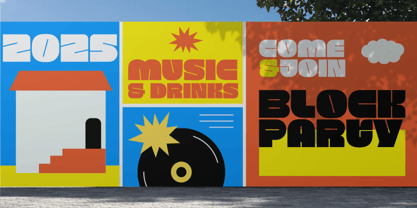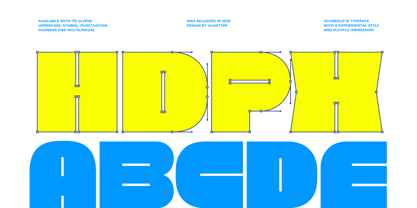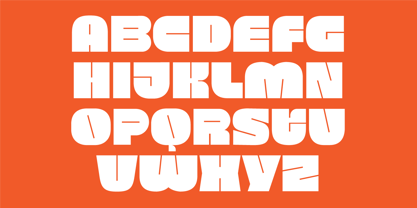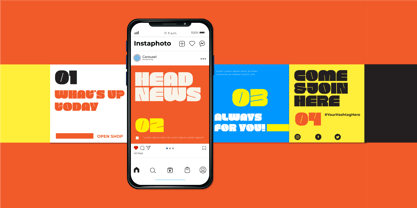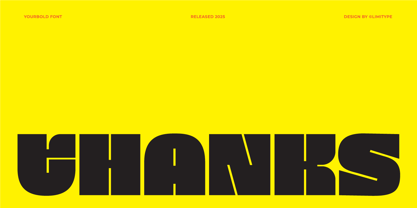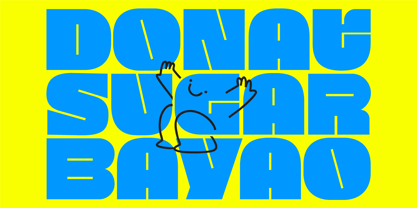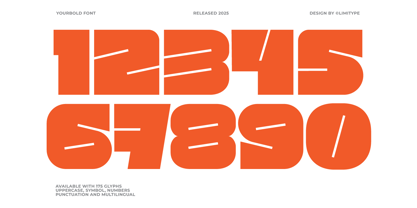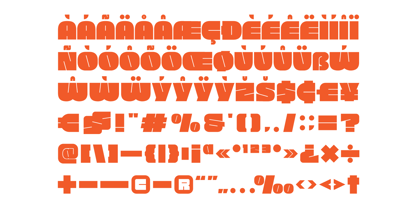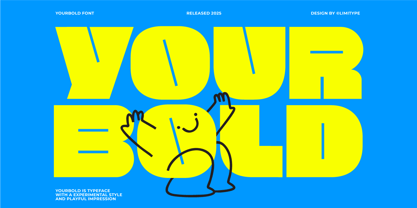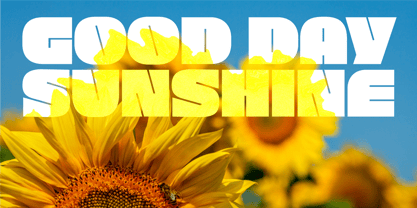
Yourbold
by limitype
The Yourbold Font Family was designed by Muhammad Muammar, Furqan Sudirman and published by limitype. Yourbold contains 1 styles. More about this family
Yourbold Display is designed to be bold, playful, strong, and full of character. Perfect for headlines, posters, logos, and any design that needs to make a strong first impression. Each letter carries a solid and confident visual energy. If your design needs to stand out and grab attention, this font is the right choice.
Yourbold Availbale with:
- Allcaps Font
- Number
- Symbol
- Multilingual
Designers: Muhammad Muammar, Furqan Sudirman
Foundry: limitype